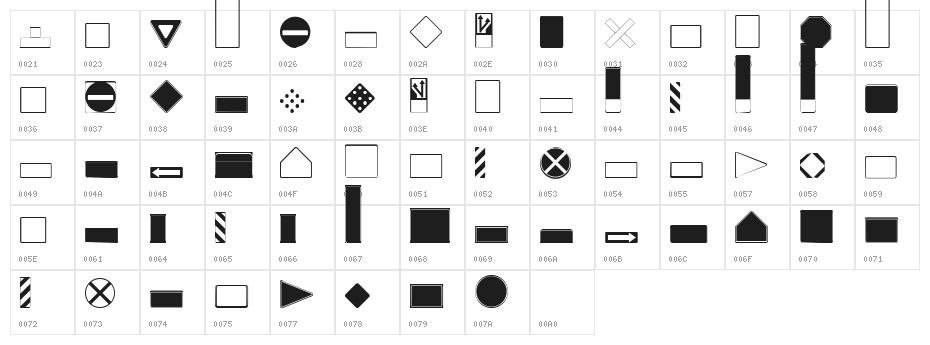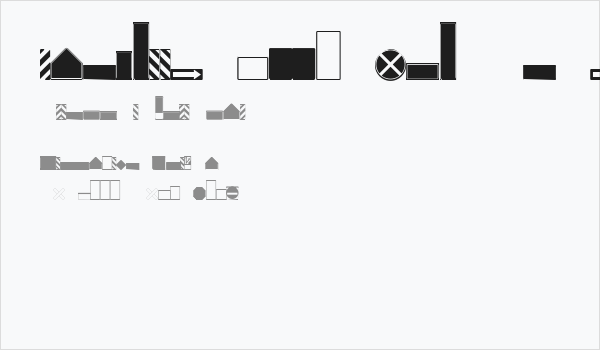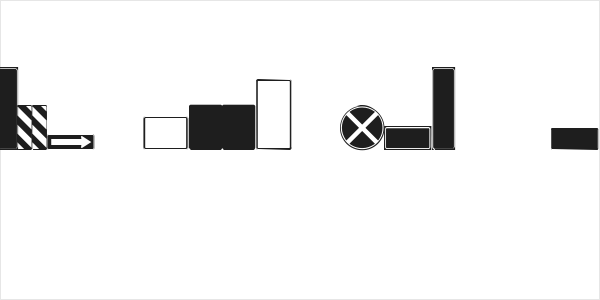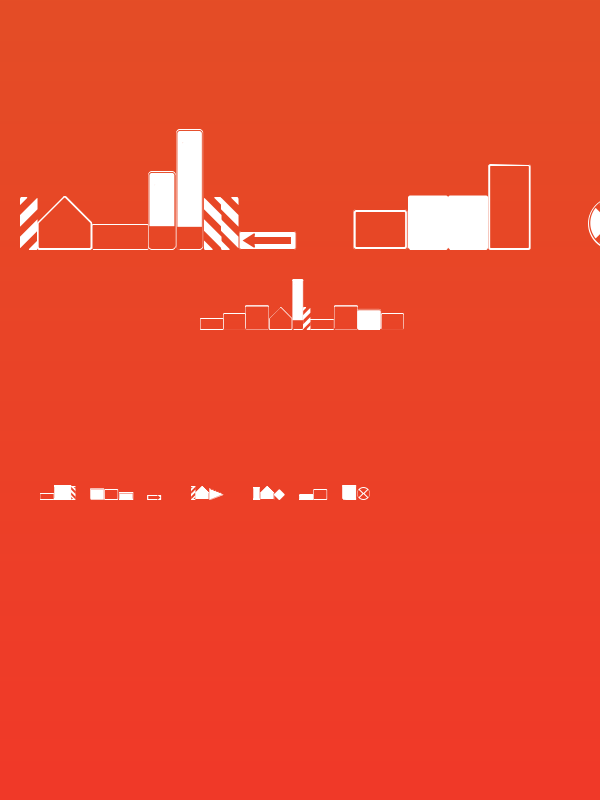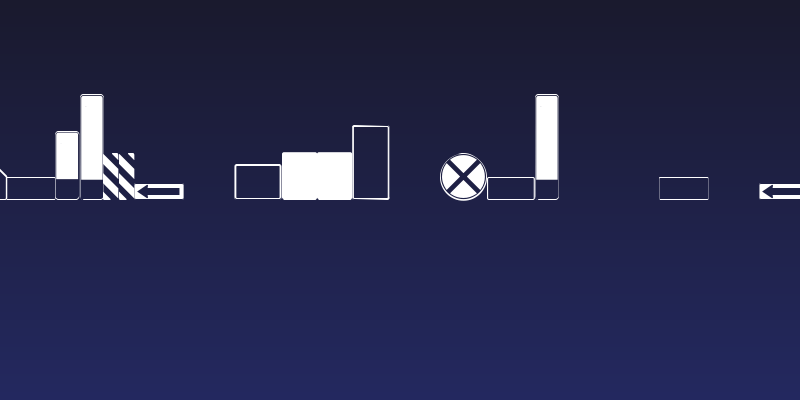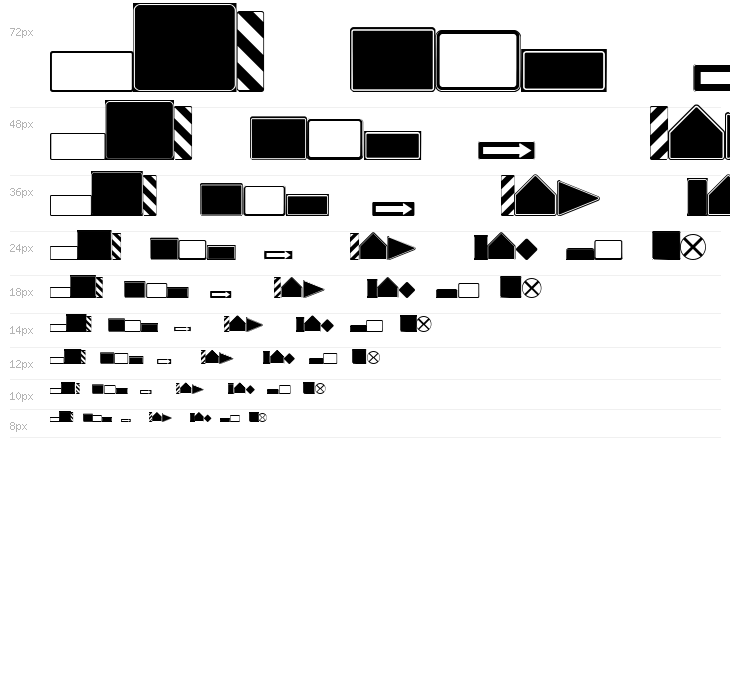
Roadgeek 2005 SignBacks Font
Roadgeek 2005 SignBacks Description
A collection of geometric shapes and road sign silhouettes, including rectangles, circles, arrows, diamonds, and other traffic-related forms. The glyphs are bold, highly legible, and designed for maximum visibility, mimicking the appearance of road sign backplates and regulatory sign shapes.
| Overall Style | Functional, Modern, Utility |
| Use Case | Icons, Infographics, Signage mockups, Decorative elements |
| Proposed Projects | Wayfinding systems, transportation infographics, educational materials, traffic safety presentations, icon sets. |